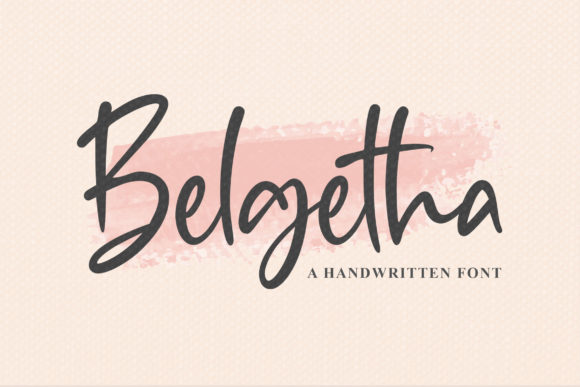
Introducing Belgetha: The Enchanting Script Font That Will Sweep You Off Your Feet
In a world where love blooms like a delicate flower, Belgetha emerges as a captivating script font, ready to weave its enchanting spell on your creative endeavors. This ethereal creation by the visionary Blankids Studio is a symphony of flowing lines and graceful curves that will leave you breathless.
Belgetha is not merely a font; it's a portal to a realm of elegance and beauty. Its meticulously crafted characters dance across the page like a ballerina, each stroke imbued with emotion and artistry. The sweet and delicate swashes add a touch of whimsy, inviting you to explore the depths of your imagination.
Whether you're crafting heartfelt wedding vows, designing enchanting invitations, or creating stunning logos, Belgetha will elevate your projects to new heights. Its timeless charm and universal appeal make it the perfect choice for a wide range of creative pursuits.
With Belgetha as your creative companion, you'll embark on a journey of self-expression and inspiration. Let your words flow effortlessly onto the page, adorned with the elegance and grace of this extraordinary font. Your creations will become treasured keepsakes, capturing the essence of love, joy, and timeless beauty.